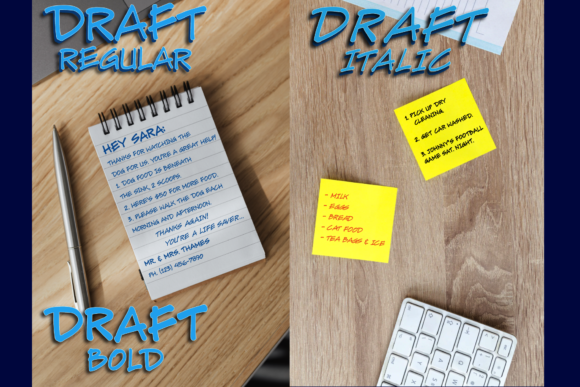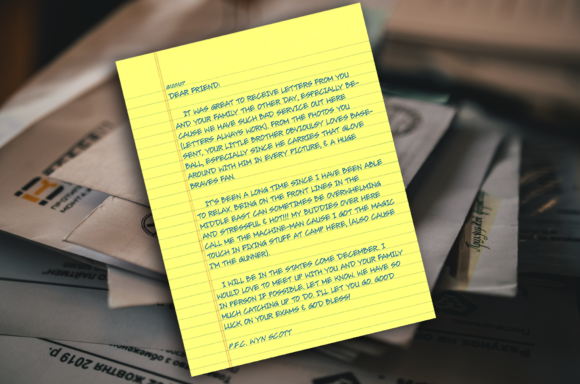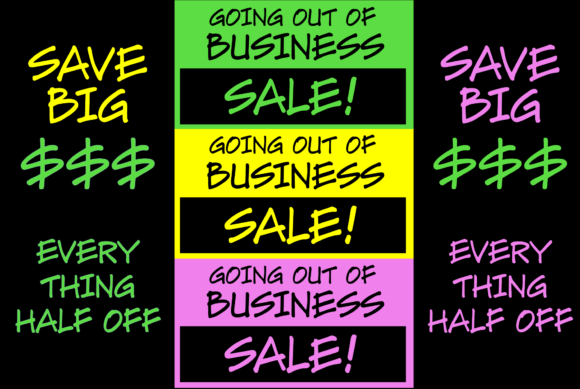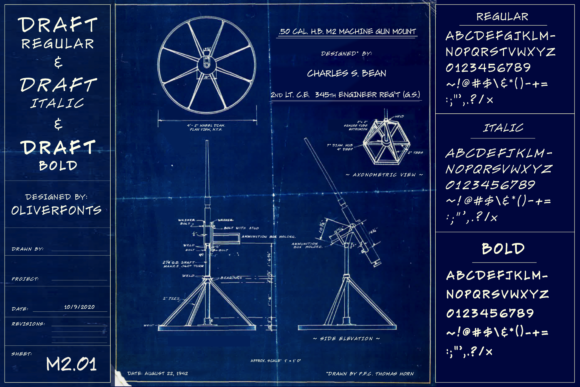
Draft Font
About Draft Font
Draft is a unique script font. Get creative with this font and use it in a wide variety of projects such as hand written notes, architectural drawing sheets, post-it notes and more.